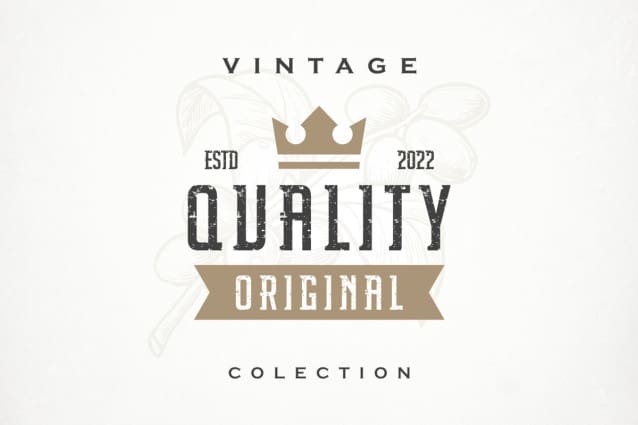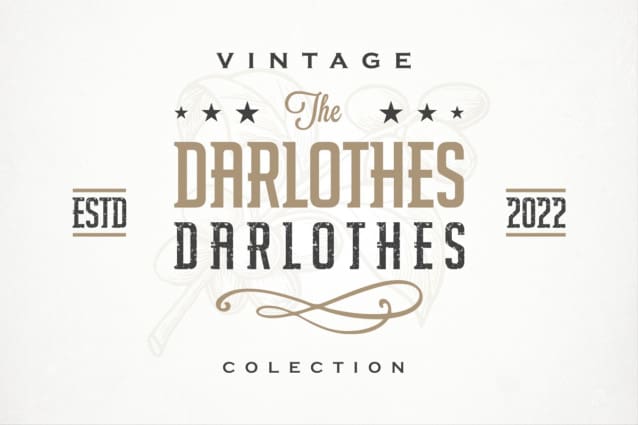
Darlothes Grunge Font
Darlothes Grunge Font – Modern Font is a bold and authentic display font. The font is suitable for any branding project like logo, t-shirt printing, esport, and many more. outstanding in a wide range of contexts.